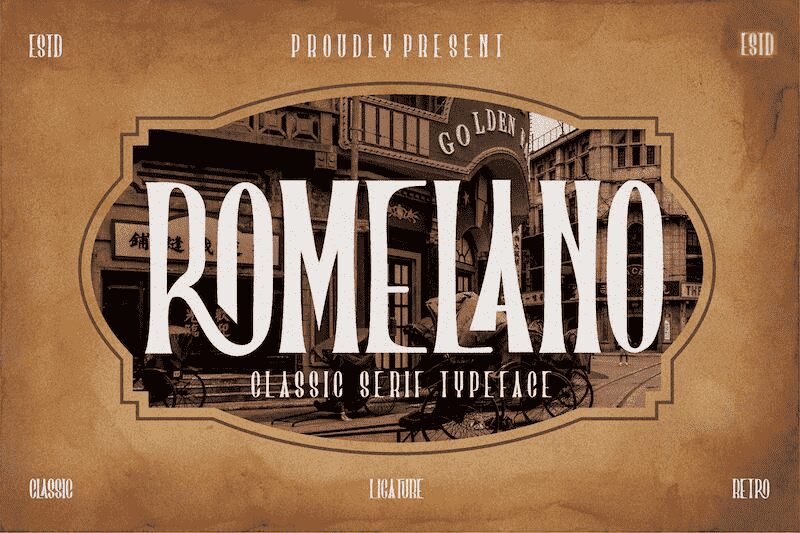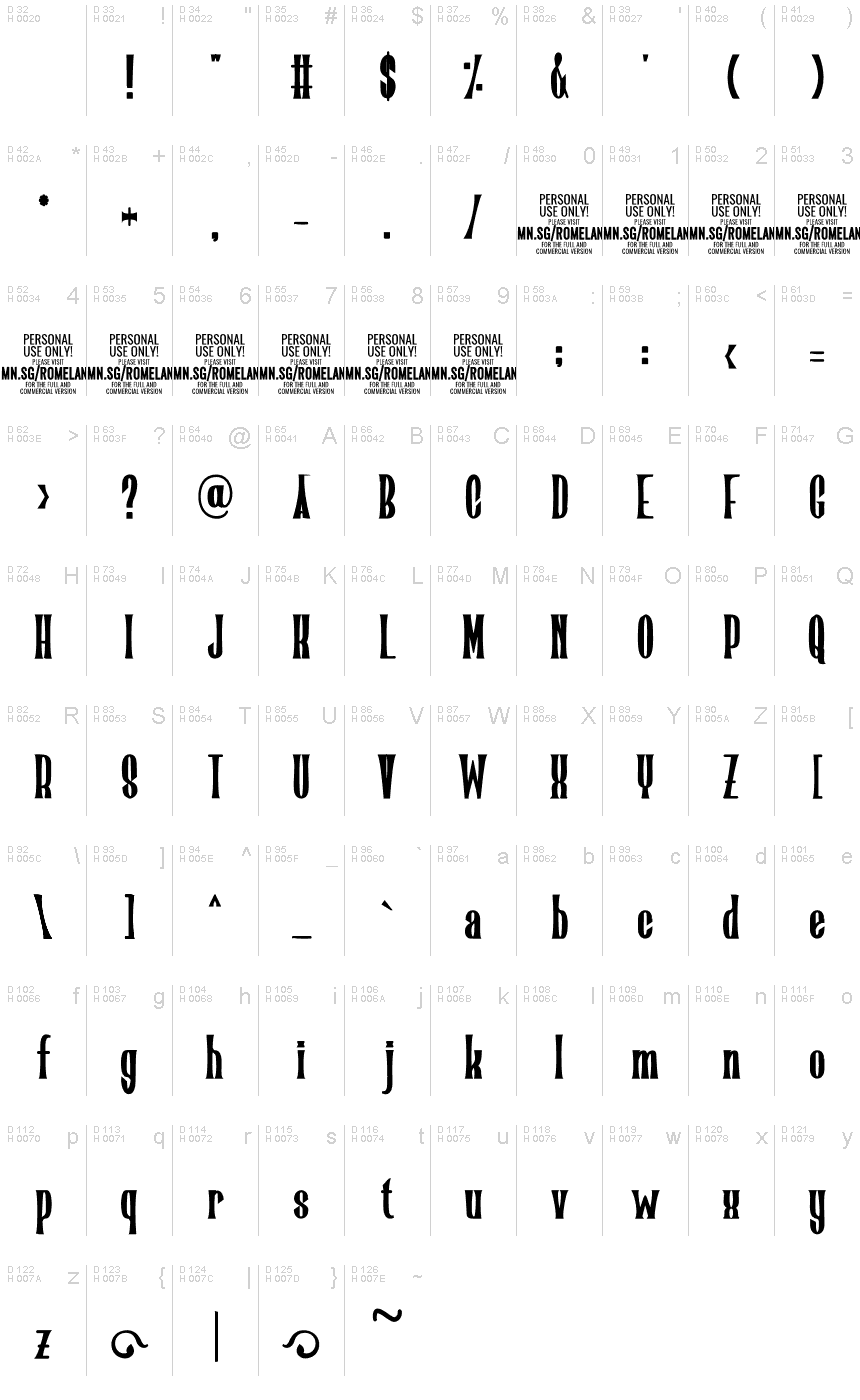
Romelano Bold PERSONAL USE Bold
Romelano Bold, designed by Mans Greback, is a captivating display font that brings retro vibes to any project. With its bold weight and extra-condensed width, this font exudes confidence and makes a strong statement. Perfect for vintage-inspired designs, Romelano Bold adds character to logos, headlines, posters, and packaging. Its unique style captures attention effortlessly and evokes nostalgia. Whether you're working on branding for a hipster coffee shop or creating eye-catching album covers for a rock band, Romelano Bold will elevate your creative projects to new heights.
Use characters { } to make decorative elements.
Example: {Beautiful}